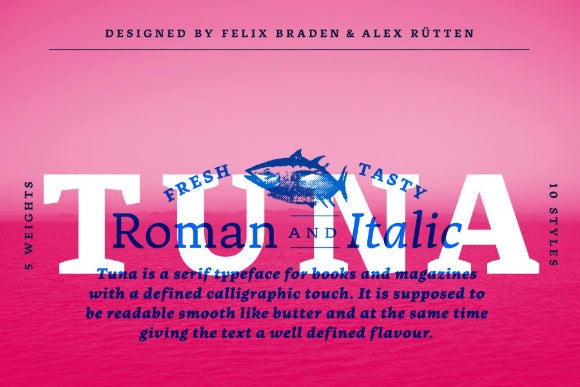
Free Tuna Typeface Demo Version
Introducing you to the absolutely beautiful free tuna typeface demo version. Free Design Resources has created this amazing and beautiful free font. This is absolutely fancy font so you can easily make world-class designs.